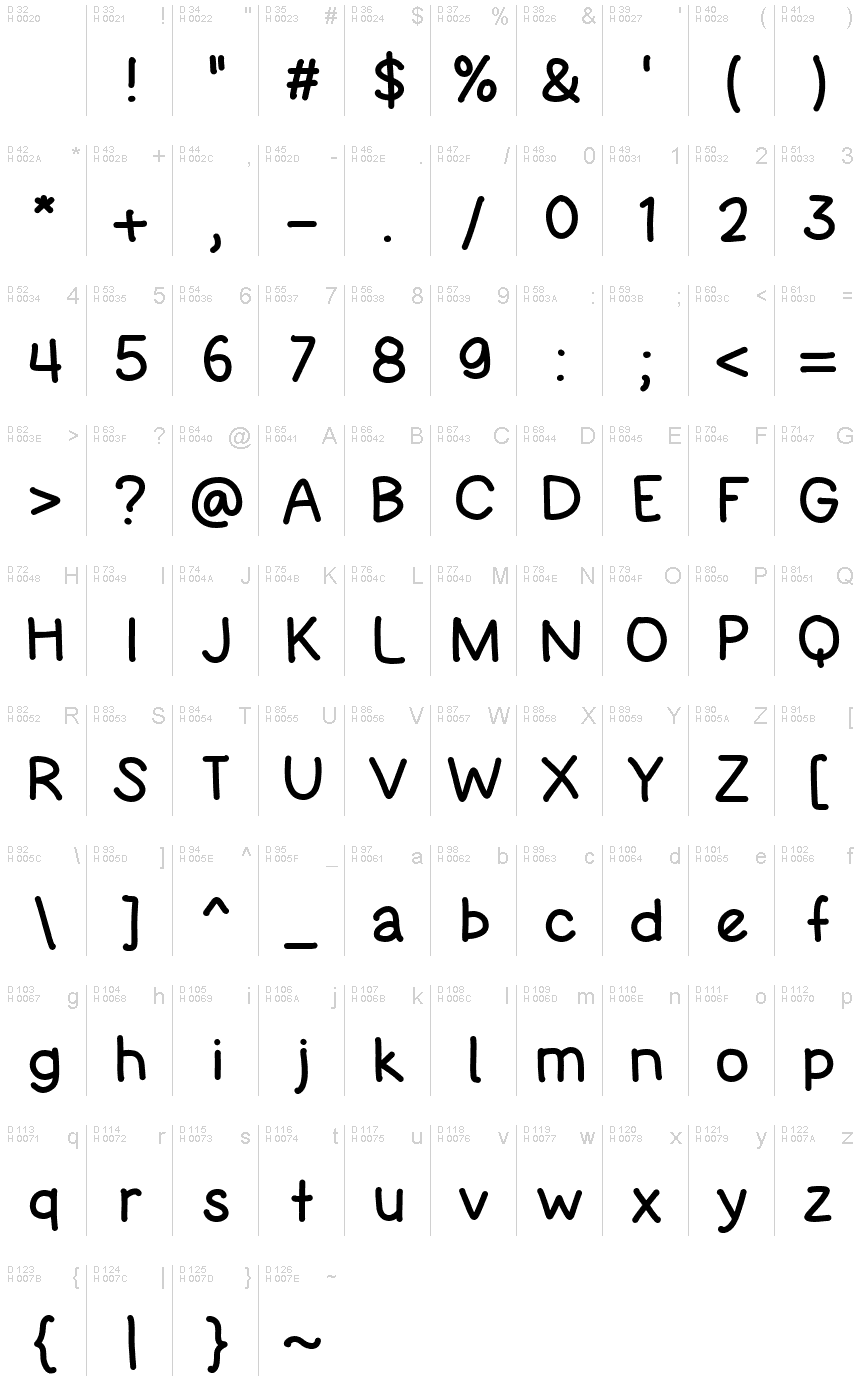
Masa Freebie 8 Regular
Netizen, a creation of Masa Aska Sanurumi, is a handwritten font that exudes a personal touch with its semi-light weight, making it an inviting and friendly choice for various design applications. The organic flow and subtle irregularities of Netizen reflect the imperfections found in natural handwriting, which adds character and warmth to the text.
The aesthetic appeal of Netizen lies in its casual yet polished appearance, offering a balance between legibility and stylistic flair. Its semi-light strokes provide enough substance for readability while maintaining an airiness that ensures versatility across different mediums.
Ideal for projects that require an approachable and informal vibe, Netizen can effortlessly enhance designs such as personalized stationery, social media graphics, branding materials for boutique businesses, or any platform seeking a humanized touch. Its charming style is particularly well-suited to convey intimacy and accessibility in creative endeavors.